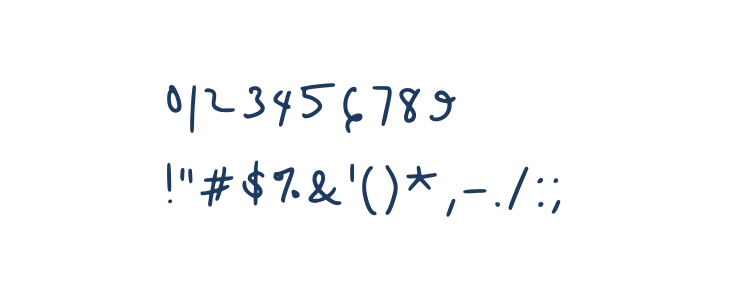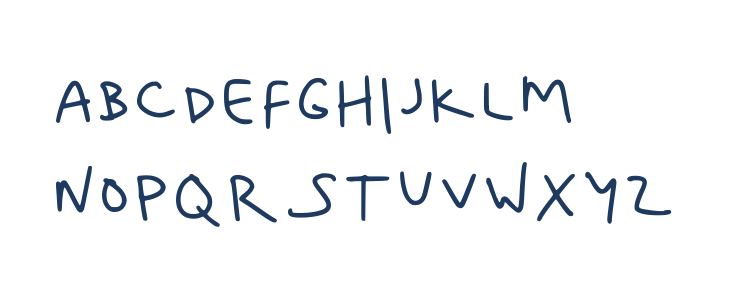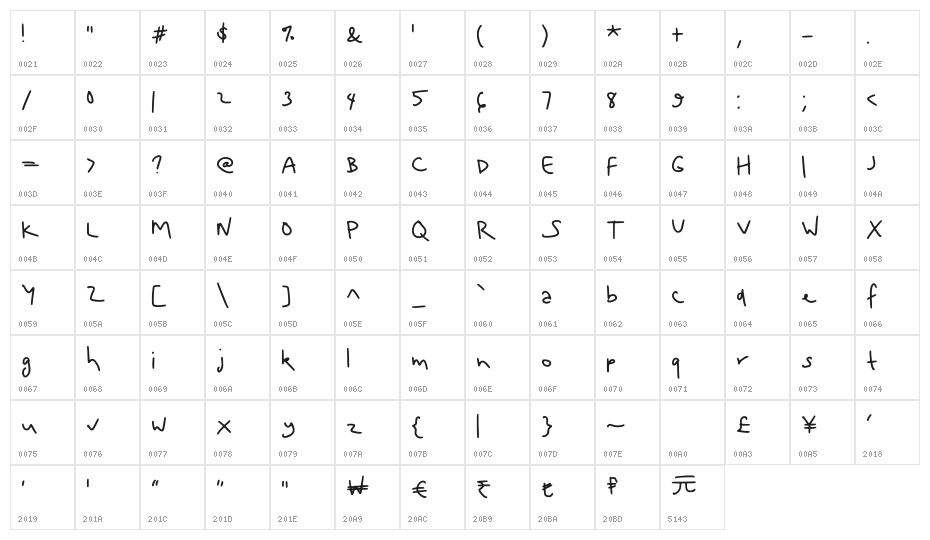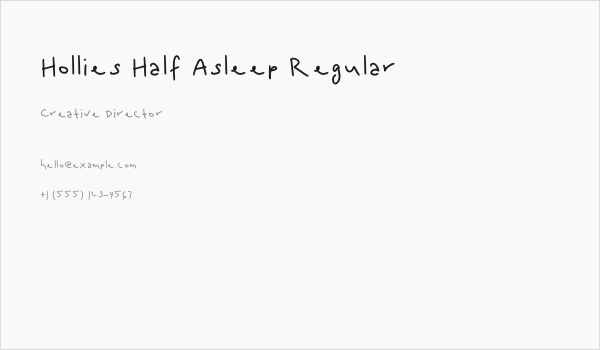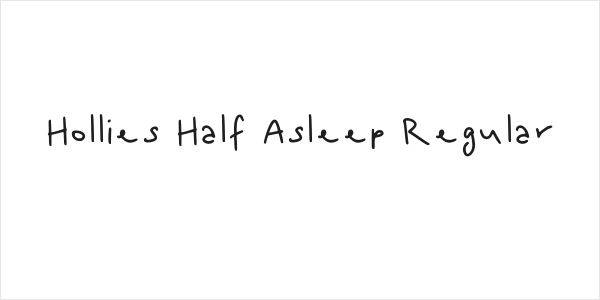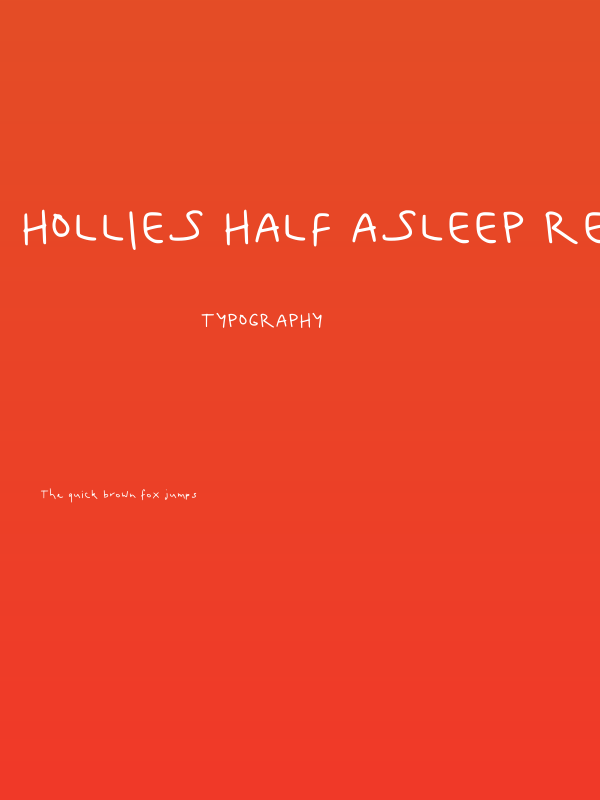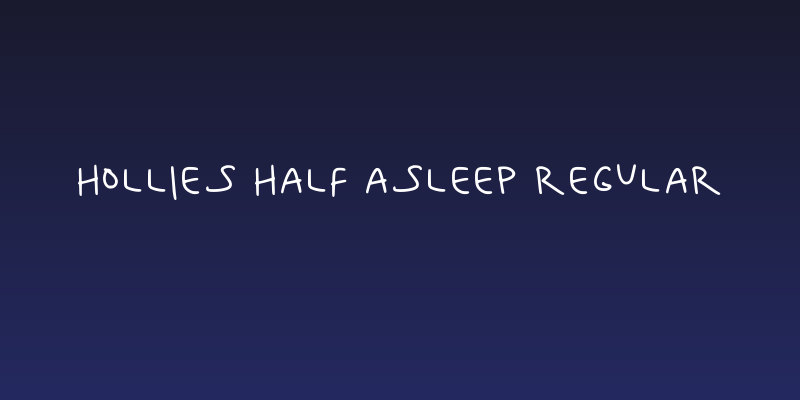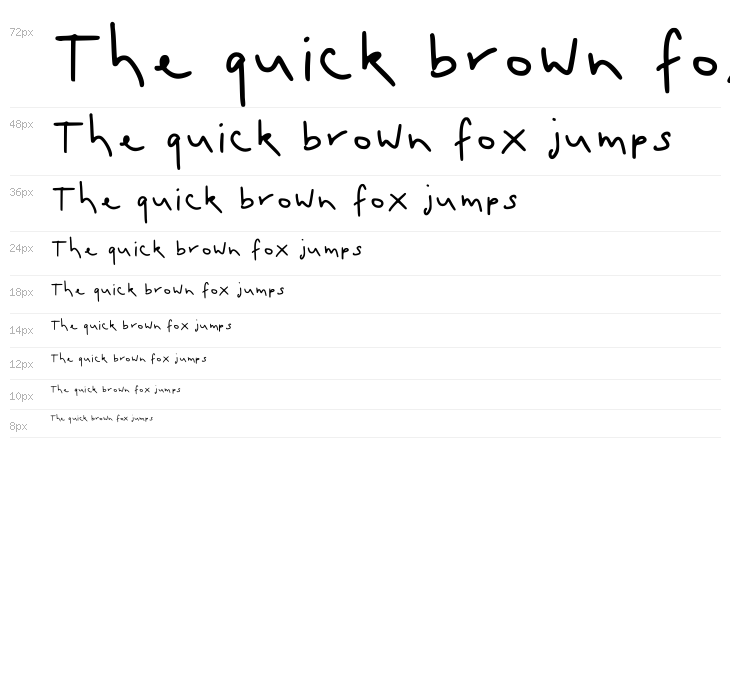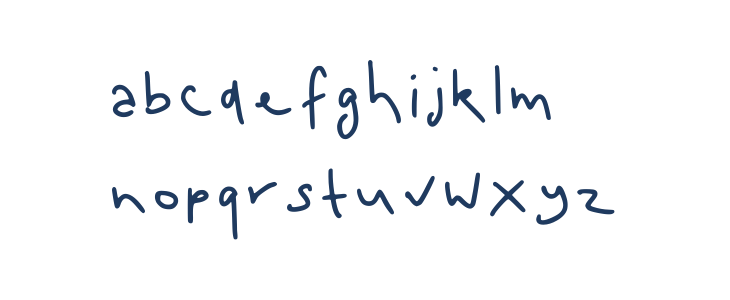
Hollies Half Asleep Regular Font
Hollies Half Asleep Regular Description
A casual, handwritten style font with irregular, playful strokes and a relaxed, informal appearance. The characters are slightly uneven, mimicking natural handwriting with a friendly and approachable feel.
| Overall Style | Casual, Playful, Handwritten |
| Use Case | Personal notes, Invitations, Informal branding, Social media posts |
| Proposed Projects | Children's books, greeting cards, casual branding, personal notes, social media graphics. |